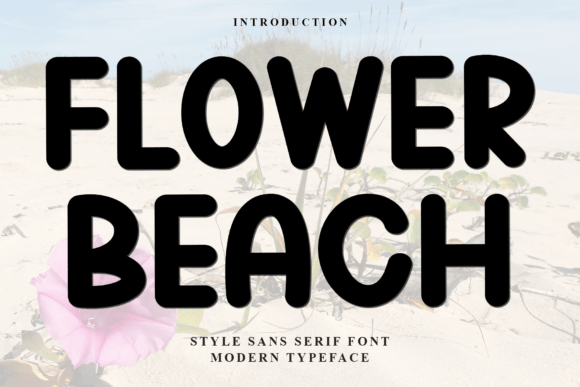
Introducing Flower Beach Font: The Perfect Addition to Your Design Projects
Are you looking for a font that can add a touch of warmth and friendliness to your design projects? Look no further than Flower Beach Font, a casual and creative font that is perfect for personal projects, invitations, and social media graphics. In this article, we’ll take a closer look at the features and benefits of Flower Beach Font, and explore how it can elevate your designs to the next level.
What is Flower Beach Font?
Flower Beach Font is a unique and charming font that is designed to exude warmth and friendliness. Its round, playful strokes create a relaxed and approachable feel, making it perfect for designs that require a personal touch. Whether you’re creating invitations, social media graphics, or personal projects, Flower Beach Font is the perfect choice.
Key Features of Flower Beach Font
- Hand-drawn aesthetic: Flower Beach Font has a charming, hand-drawn aesthetic that adds a fun and unique touch to any design.
- Playful strokes: The font’s round, playful strokes create a relaxed and approachable feel, perfect for personal projects and social media graphics.
- Casual and creative: Flower Beach Font is a casual and creative font that is perfect for designs that require a personal touch.
Benefits of Using Flower Beach Font
There are many benefits to using Flower Beach Font in your design projects. Here are just a few:
- Adds a personal touch: Flower Beach Font is perfect for designs that require a personal touch. Its hand-drawn aesthetic and playful strokes create a unique and charming feel that is sure to engage your audience.
- Perfect for social media graphics: The font’s casual and creative vibe makes it perfect for social media graphics, such as Facebook posts, Instagram stories, and Twitter headers.
- Great for invitations: Flower Beach Font is also perfect for invitations, such as birthday party invitations, wedding invitations, and baby shower invitations.
Tips for Getting the Most Out of Flower Beach Font
Here are some tips for getting the most out of Flower Beach Font:
- Use it for personal projects: Flower Beach Font is perfect for personal projects, such as photo albums, scrapbooking, and journaling.
- Experiment with different colors: The font looks great in a variety of colors, so don’t be afraid to experiment and find the perfect color for your design.
- Pair it with other fonts: Flower Beach Font pairs well with other fonts, such as sans-serif fonts and script fonts.
- Use it for social media graphics: The font’s casual and creative vibe makes it perfect for social media graphics, such as Facebook posts, Instagram stories, and Twitter headers.
Flower Beach Font is a unique and charming font that is perfect for designs that require a personal touch. Its hand-drawn aesthetic, playful strokes, and standard PUA Encoded glyphs make it a great addition to any design project. Whether you’re creating invitations, social media graphics, or personal projects, Flower Beach Font is the perfect choice. So why not give it a try and see how it can elevate your designs to the next level?
- What is Flower Beach Font?: Flower Beach Font is a casual and creative font that exudes warmth and friendliness.
- What are the key features of Flower Beach Font?: The font’s key features include its hand-drawn aesthetic, standard PUA Encoded glyphs, playful strokes, and casual and creative vibe.
- What are the benefits of using Flower Beach Font?: The benefits of using Flower Beach Font include adding a personal touch to your designs, perfect for social media graphics and invitations, and works well with various design applications.